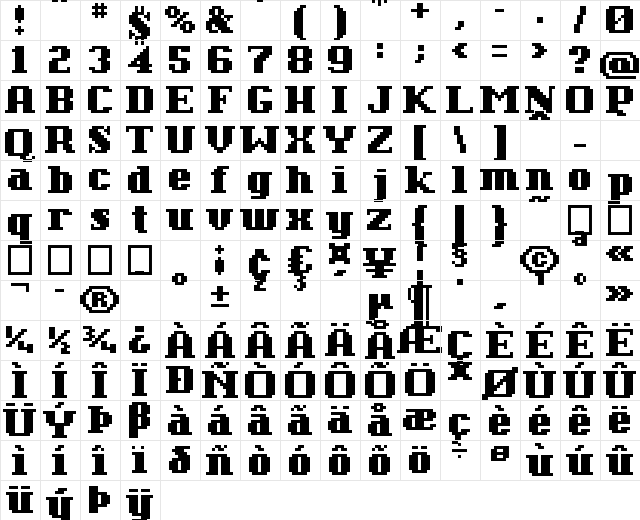
01Dramatix Bold
Design Context for 01Dramatix Typeface
01Dramatix offers clean, dependable letterforms without strong stylistic allegiance, making it a practical choice for designers who need flexibility. The heavy weight commands attention and anchors typographic hierarchies.